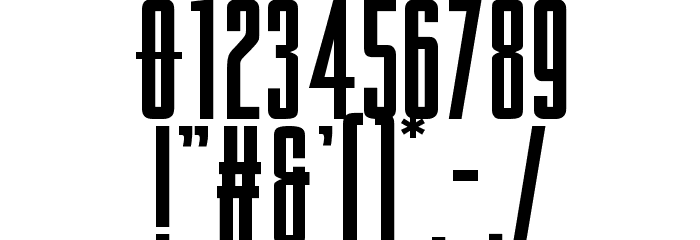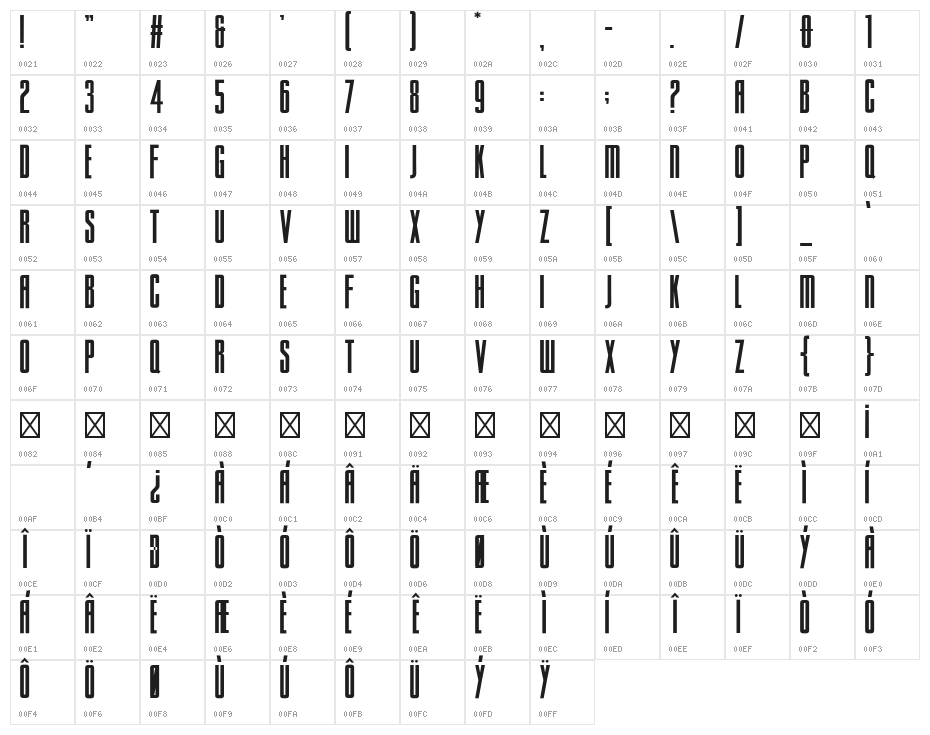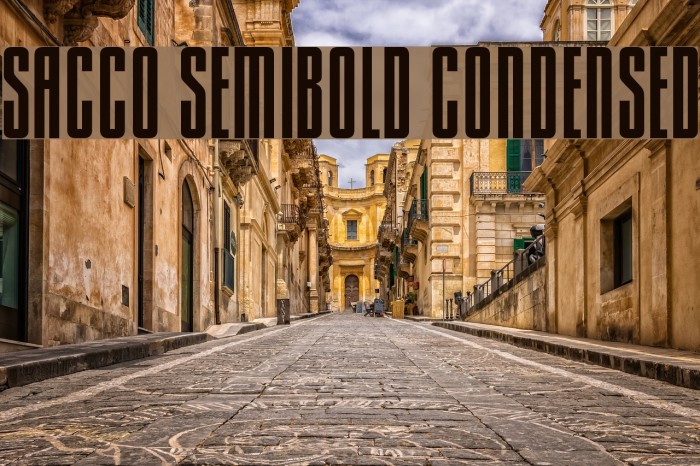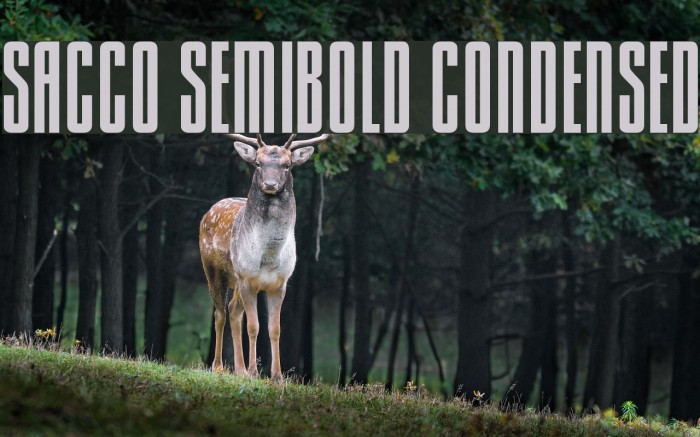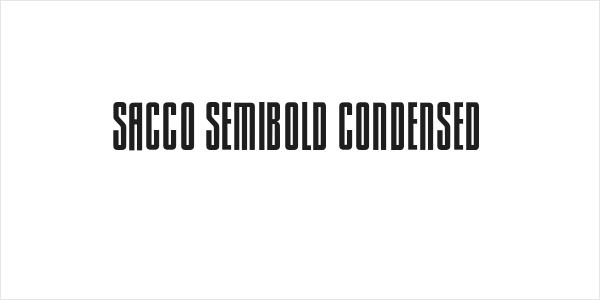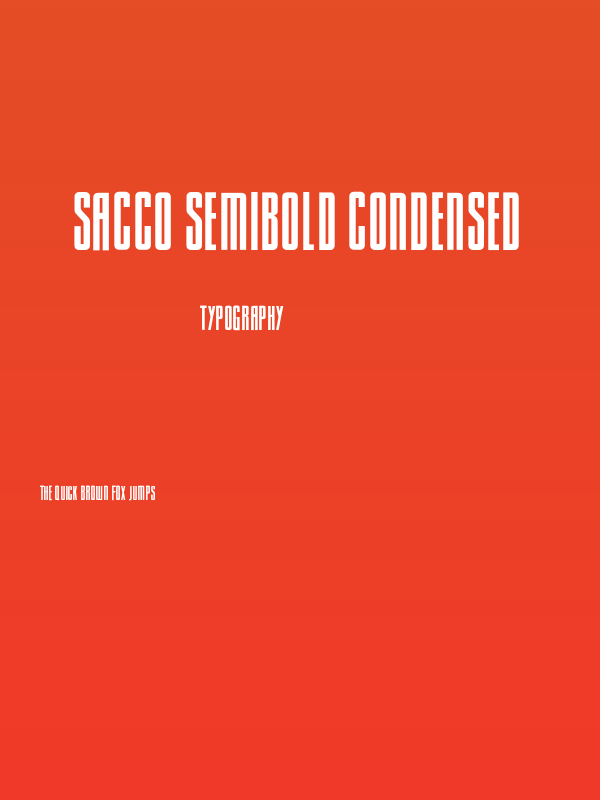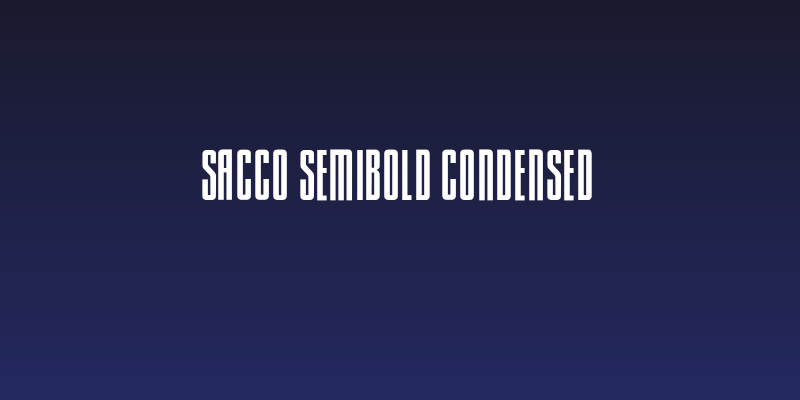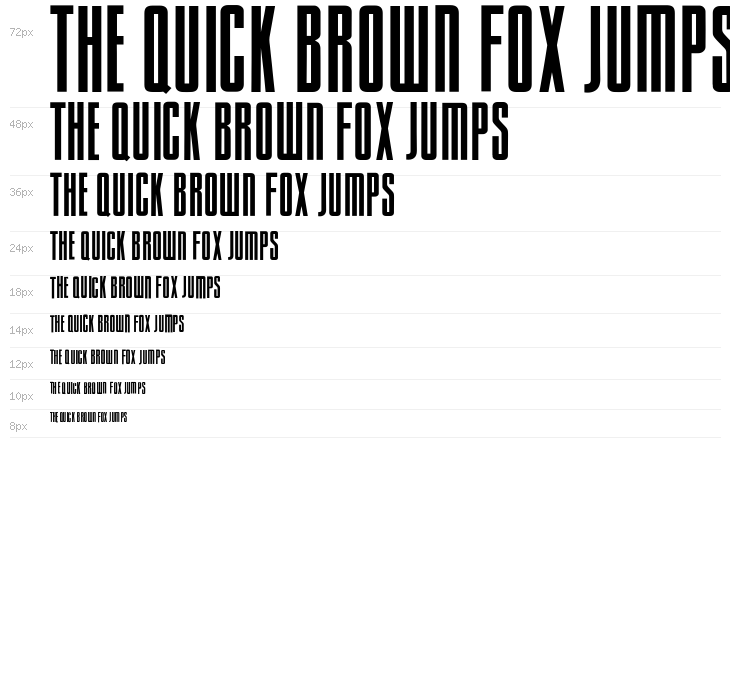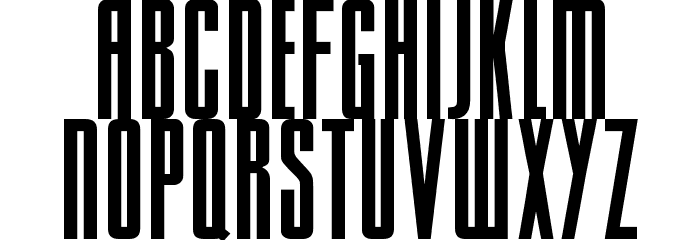
Sacco SemiBold Condensed Font
Sacco SemiBold Condensed Description
This font features a bold and condensed style, characterized by tall, narrow letters with a strong vertical emphasis. The uppercase and lowercase letters maintain a consistent height, creating a uniform appearance. The numerals are similarly elongated, enhancing the condensed aesthetic. The font's design is modern and impactful, making it suitable for attention-grabbing headlines or titles. The spacing between characters is tight, contributing to its compact look. The high contrast in stroke thickness adds to its boldness, while the overall style remains sleek and contemporary.
| Proposed Projects | Ideal for posters, headlines, branding, and any design requiring a strong visual impact. |